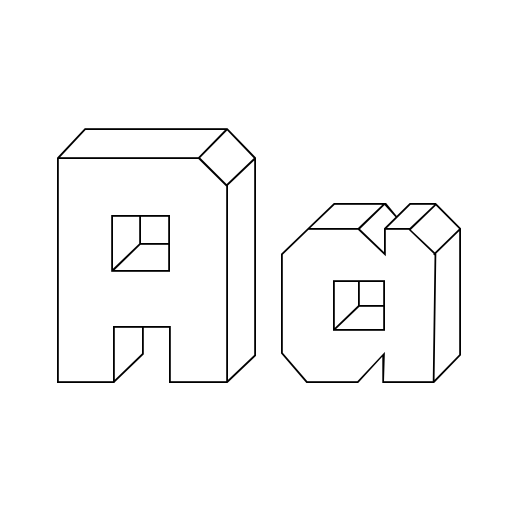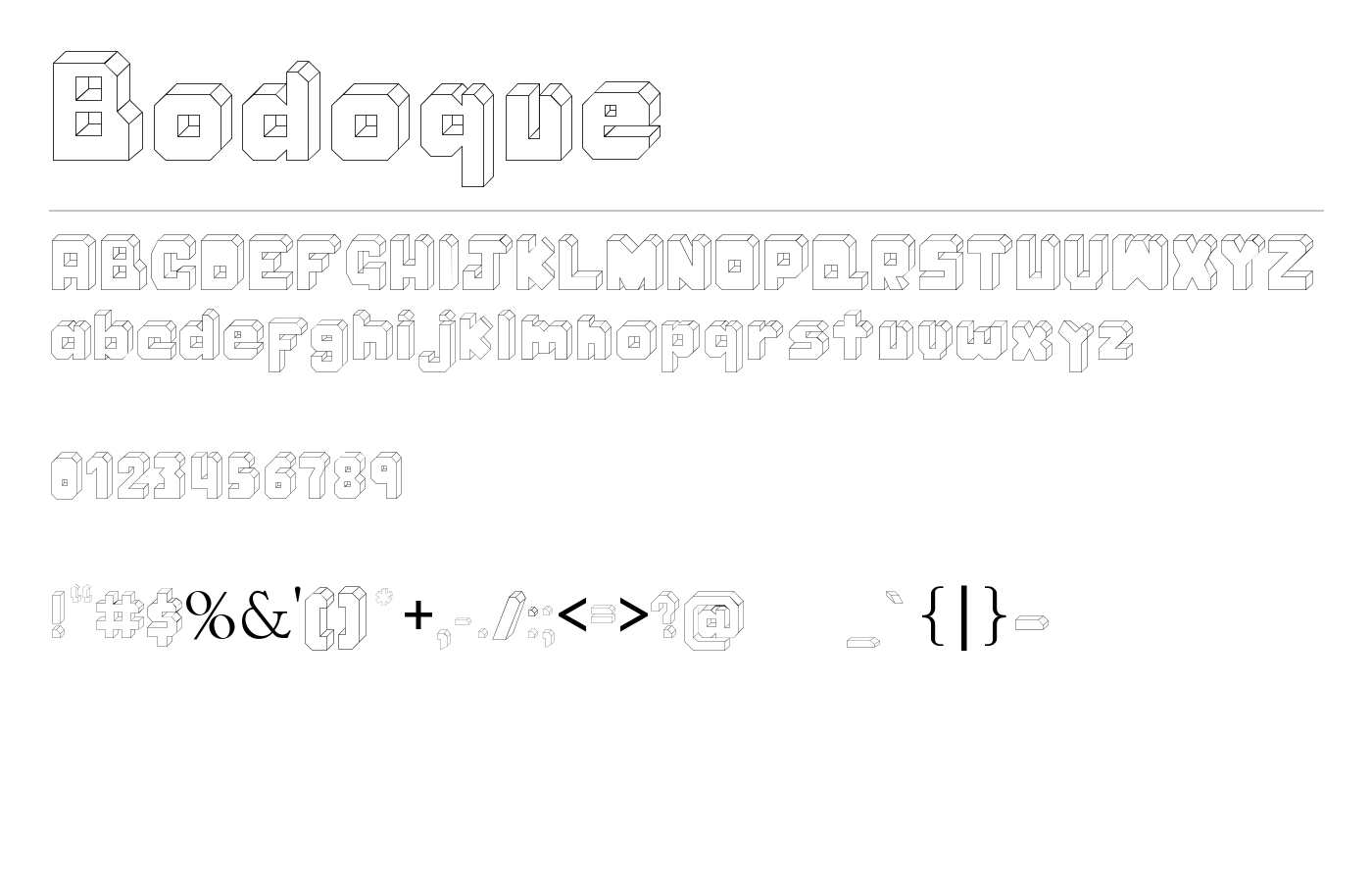
Bodoque is a distinctive geometric sans serif font with a bold, three-dimensional outline style that gives it a playful yet structured personality. Its wide, blocky letterforms with sharp edges and consistent stroke weight create a strong visual impact, making it ideal for eye-catching headlines, posters, or branding projects that aim for a modern, tech-inspired vibe. This font stands out best in display settings where its unique, architectural design can be fully appreciated.
Bodoque Font